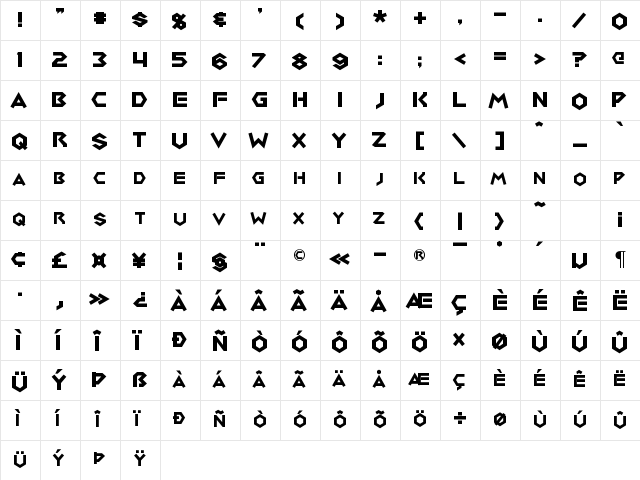
Medabots Regular
Design Context for Medabots Typeface
Medabots is a composed and adaptable typeface that performs quietly and consistently across a wide range of design contexts.